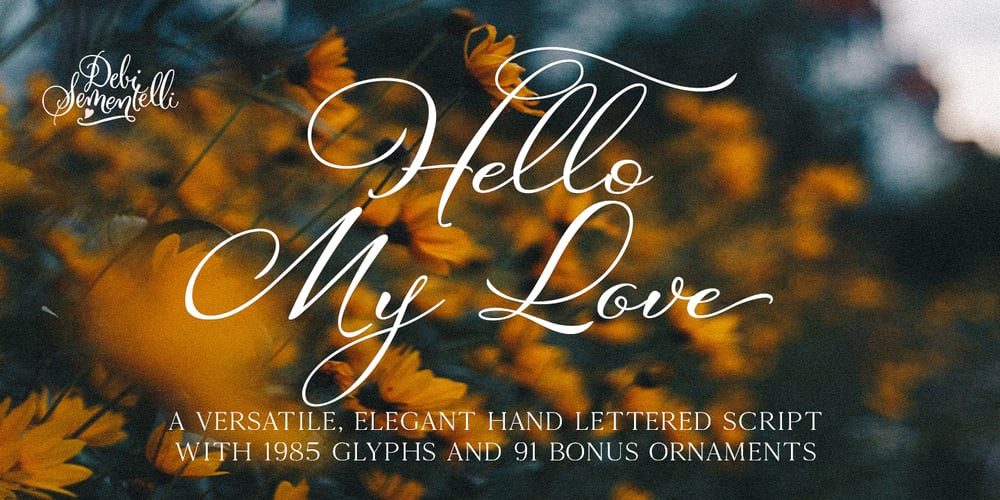
Hello My Love Pro Font Family was designed by Debi Sementelli and published by Debi Sementelli Type Foundry. Hello My Love Pro contains 2 styles and family package options. “Hello My Love” is a font love story. Inspired by my own long and happy marriage of 35 years, it was created to celebrate love! A classic hand-lettered script with a modern and fresh feel, it fits beautifully with current designs and yet is sure to stand the test of time.Made with invitation designers in mind, the Hello My Love Pro script font includes a total of 1985 glyphs plus a BONUS FONT, Hello My Love Ornaments! It has 91 hand illustrations including frames, florals and design elements. As a result, you will be able to create a variety of designs to highlight your special project. It’s especially well-suited for invitations for branding weddings and other special occasions! And it supports 129 languages!The font is loaded with features: Stylistic and Contextual Alternates, Swash Caps, Standard and Discretionary Ligatures, Beginning Swashes for lower case letters, Cross-less t and f that can be combined with a flourished letter to avoid clashing plus 3 ampersands, small word art “and” & “No.”, Roman Numerals, Ordinals and Fractions.This font was created to make designing easy. Need to convert upper case letters into Roman numerals throughout a guest list? Just turn on contextual alternates in Open Type capable programs and presto, the caps become Roman! Want a variety of letter choices? There are 215 stylistic alternate upper cases and 259 stylistic alternate lower cases as well as 69 ligatures to give you plenty of options.You can choose from swashes in 4 different styles and 3 different lengths resulting in unique beginning lower case letters.Works for Cutting Machines! No special software is required to use Hello My Love. All of my fonts have been specially coded for PUA (Private Use Area) so you can access all of the swashes and alternates using Character Map (PC) or Character Viewer (Mac) or with any number of apps including PopChar. If you would like to purchase PopChar at a special discount email me and I will send you the link. For Microsoft Word users, you can easily access the Stylistic and Contextual Alternates and the Roman Numerals through the Typography feature. (Microsoft Word 2010 and later)For more details about how to use my fonts, check out my video tutorials on my YouTube channel: https://www.youtube.com/user/Letteringartstudio/videos